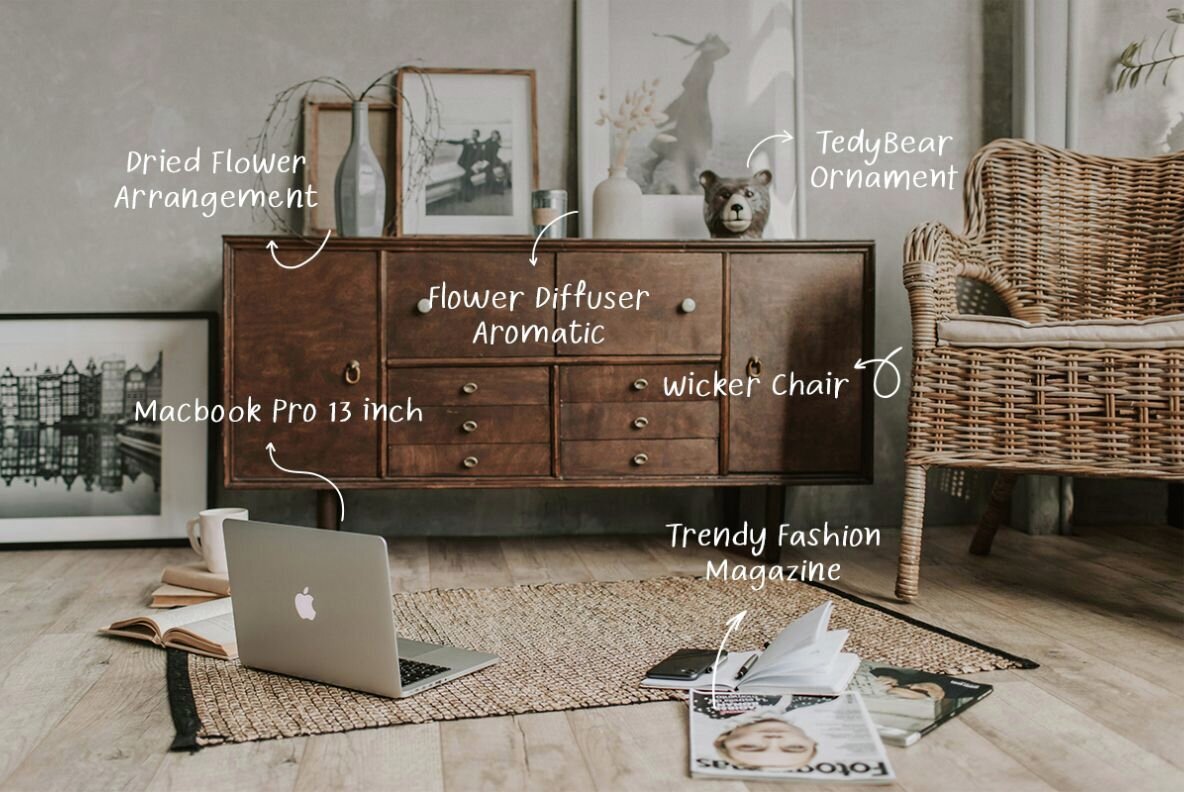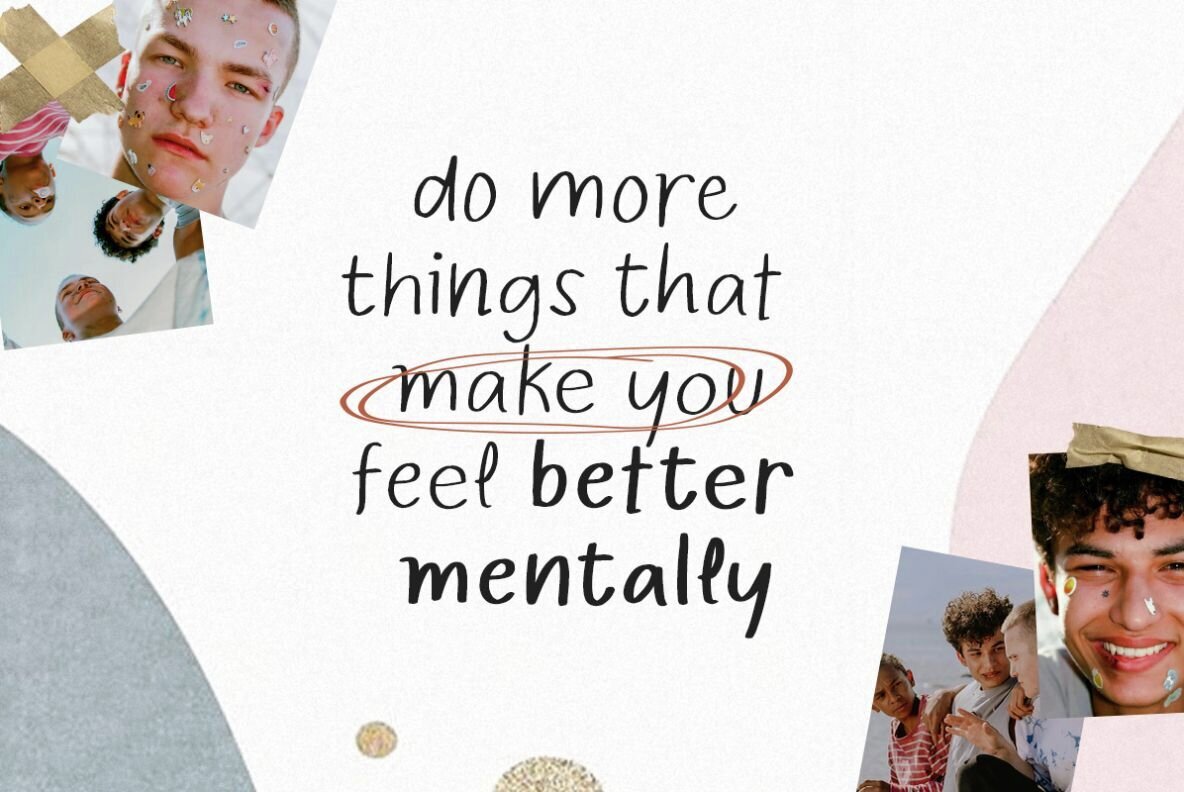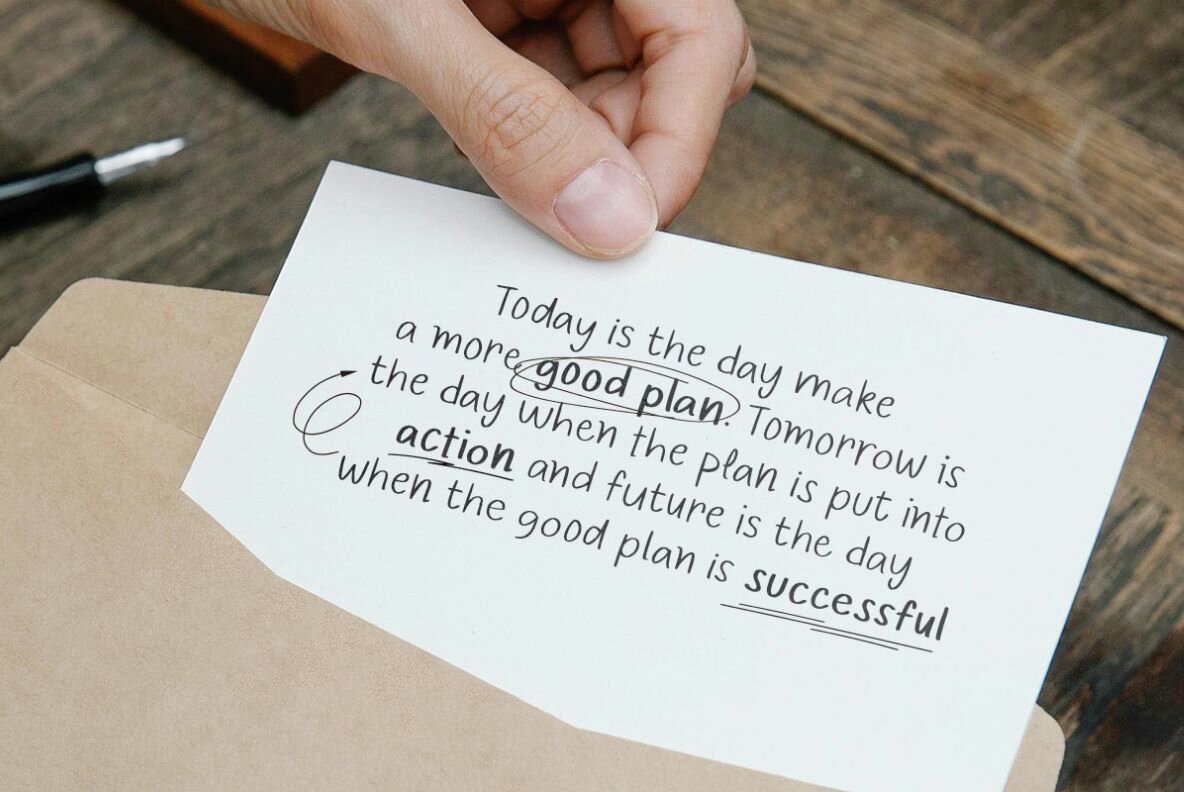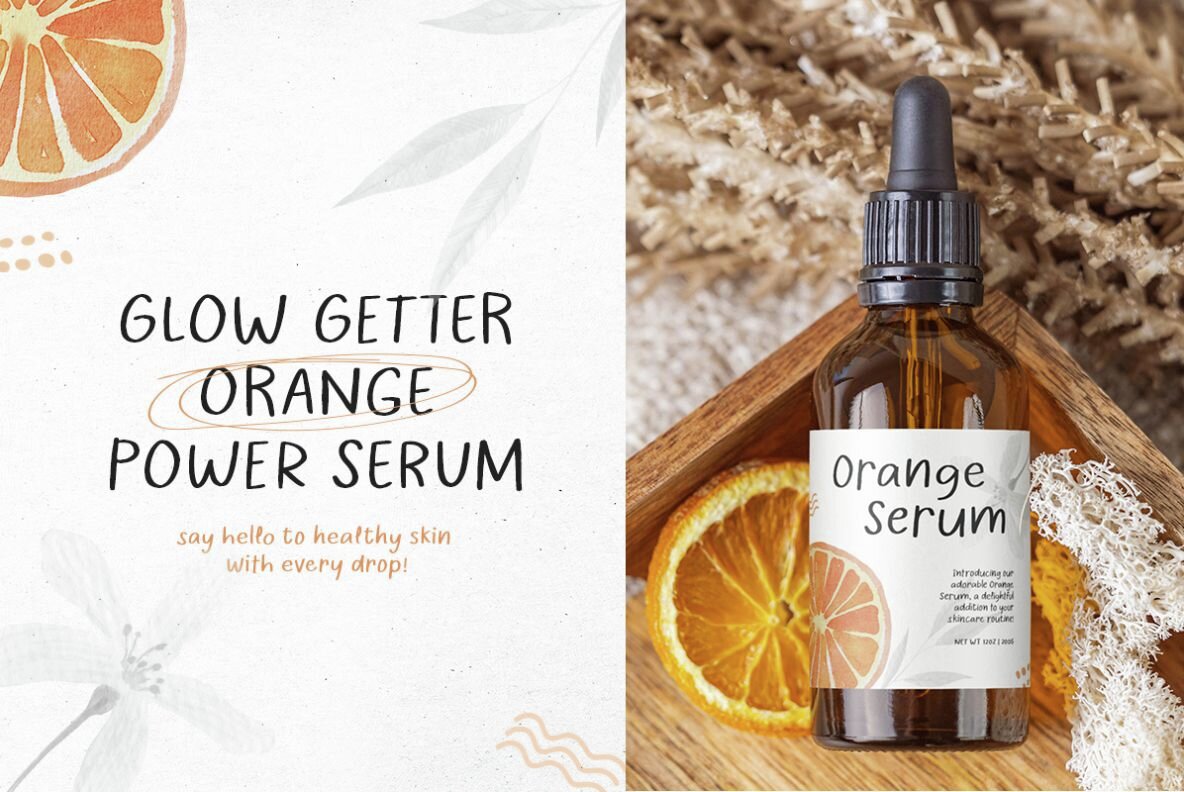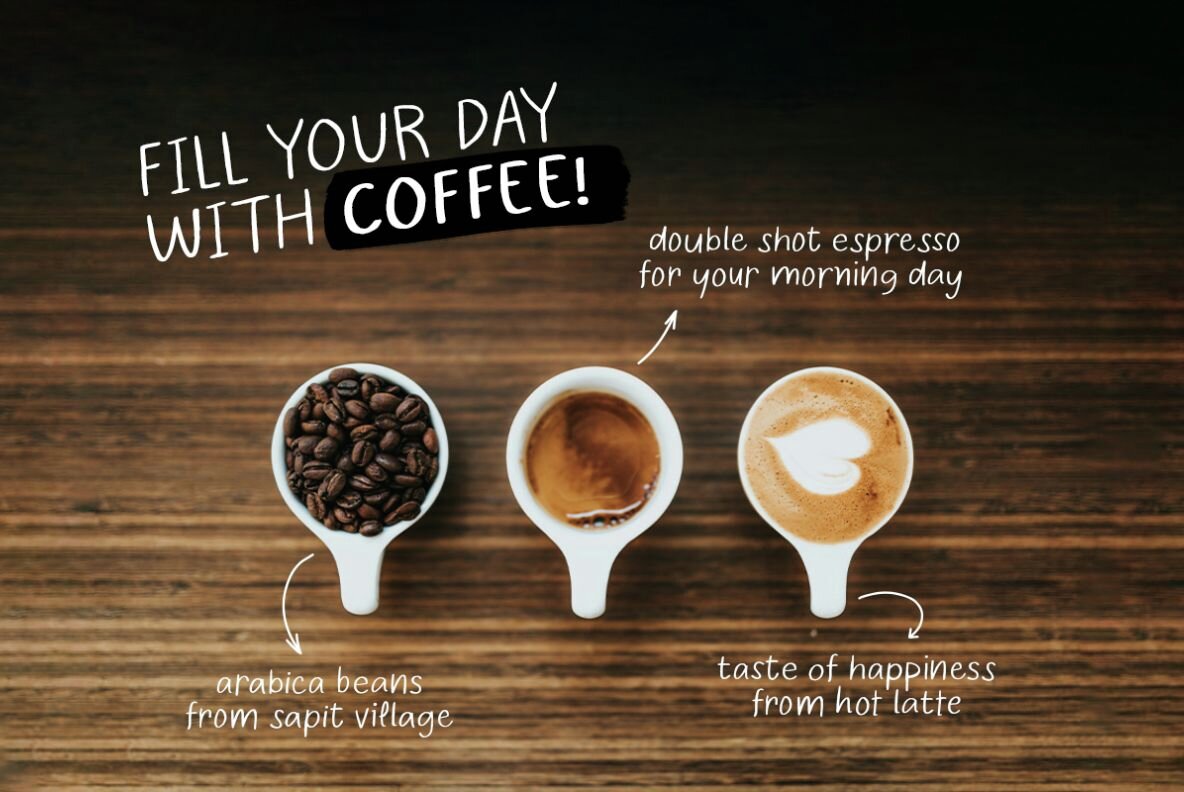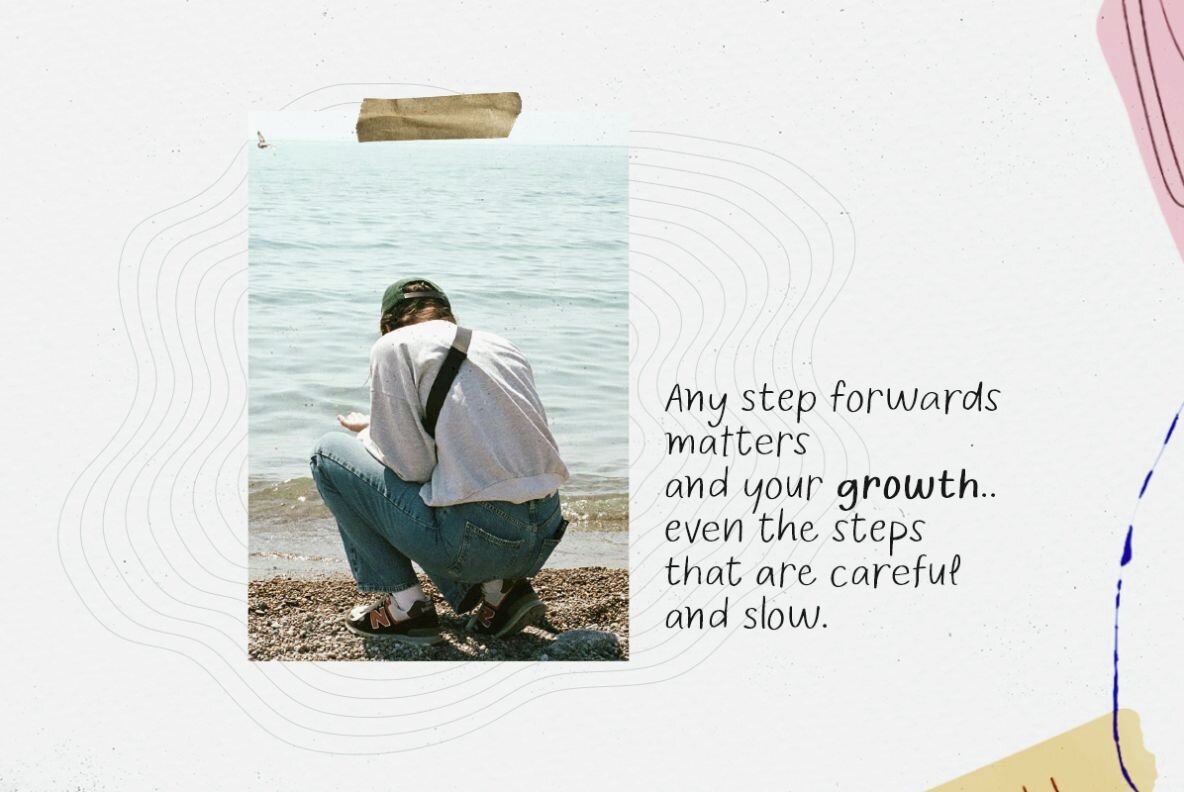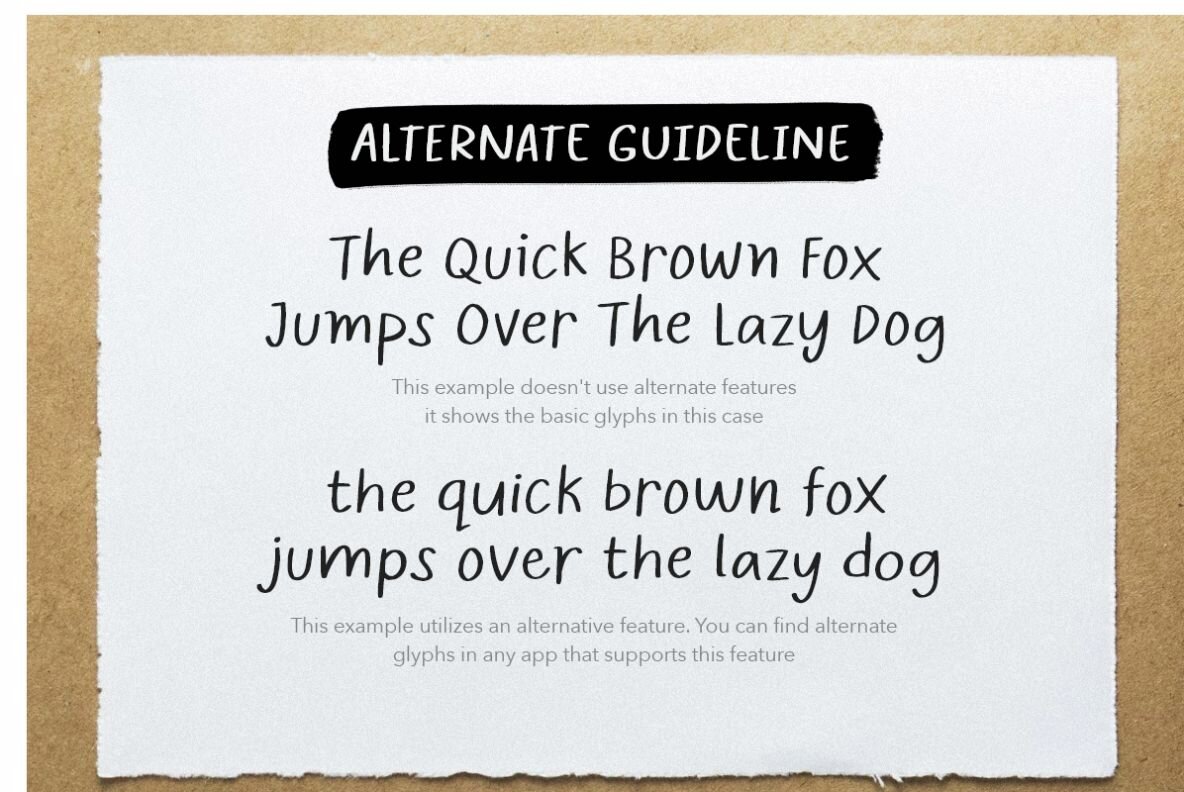
Blink Points Font
Blink Points is a versatile handwritten quote font family, offering three distinct styles: Light, Regular, and Bold. Designed with creative variety in mind, each character comes with three unique variations that automatically alternate when the Contextual Alternates feature is activated in OpenType-supporting software like Adobe Photoshop or Illustrator. This functionality enhances your projects by giving text a more genuine handwritten look, perfect for adding an authentic and personal touch to your designs.
Moreover, this font family extends its usability across diverse audiences by supporting multiple languages, making it a practical choice for global projects. With its natural handwritten appearance and adaptability in various design platforms, Blink Points is an excellent choice for graphic and digital designers seeking to create dynamic and engaging visuals.